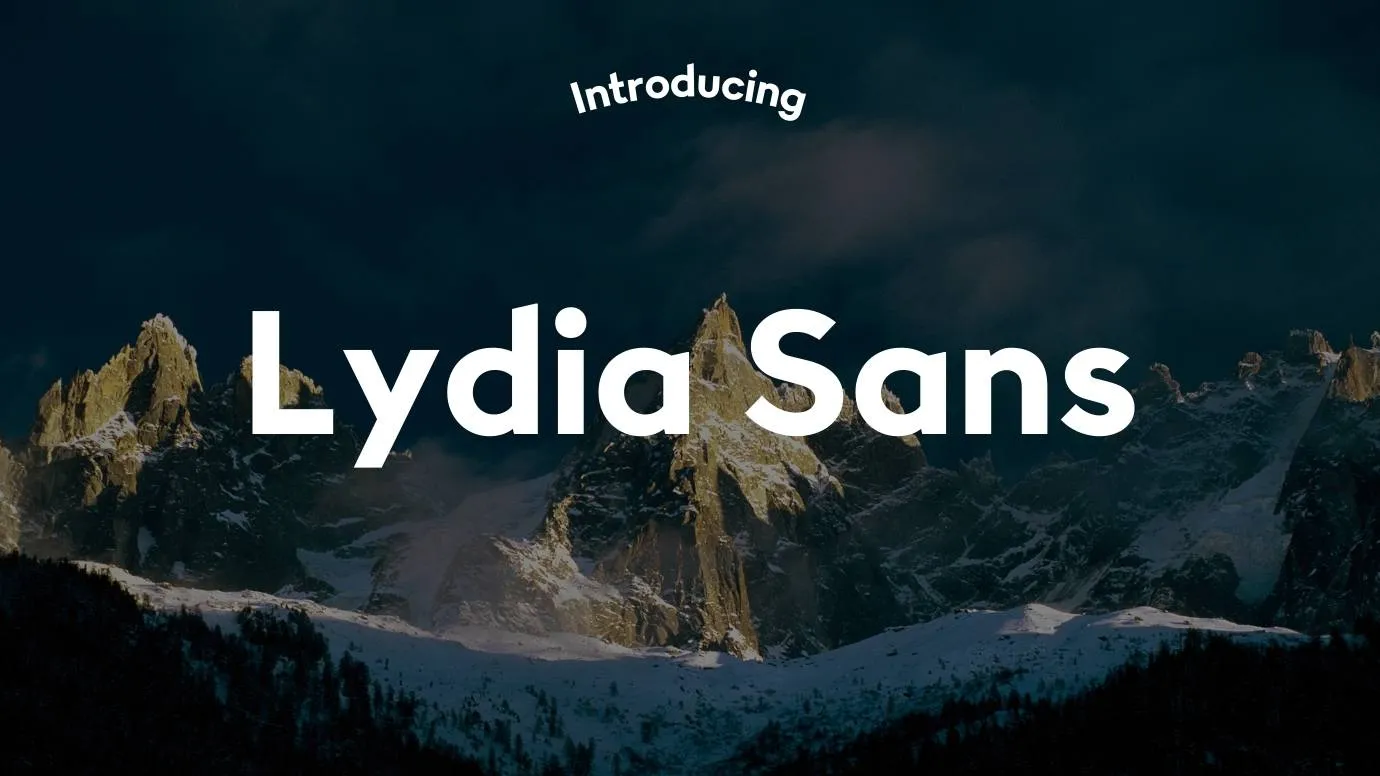
Lydia Sans Font Family
Lydia Sans Font Family is a sans serif type font. It comes with italic, thin, bold, and regular weights that make 24 classic styles. This is a geometric sans serif typeface and João Cracel is the main and real designer of this font.
Due to its charming and flexible look, this font family is so popular in the design market. A wide range of languages supports this amazing typeface that’s why the features of this font family are available for many international designs.
Lydia Sans Font